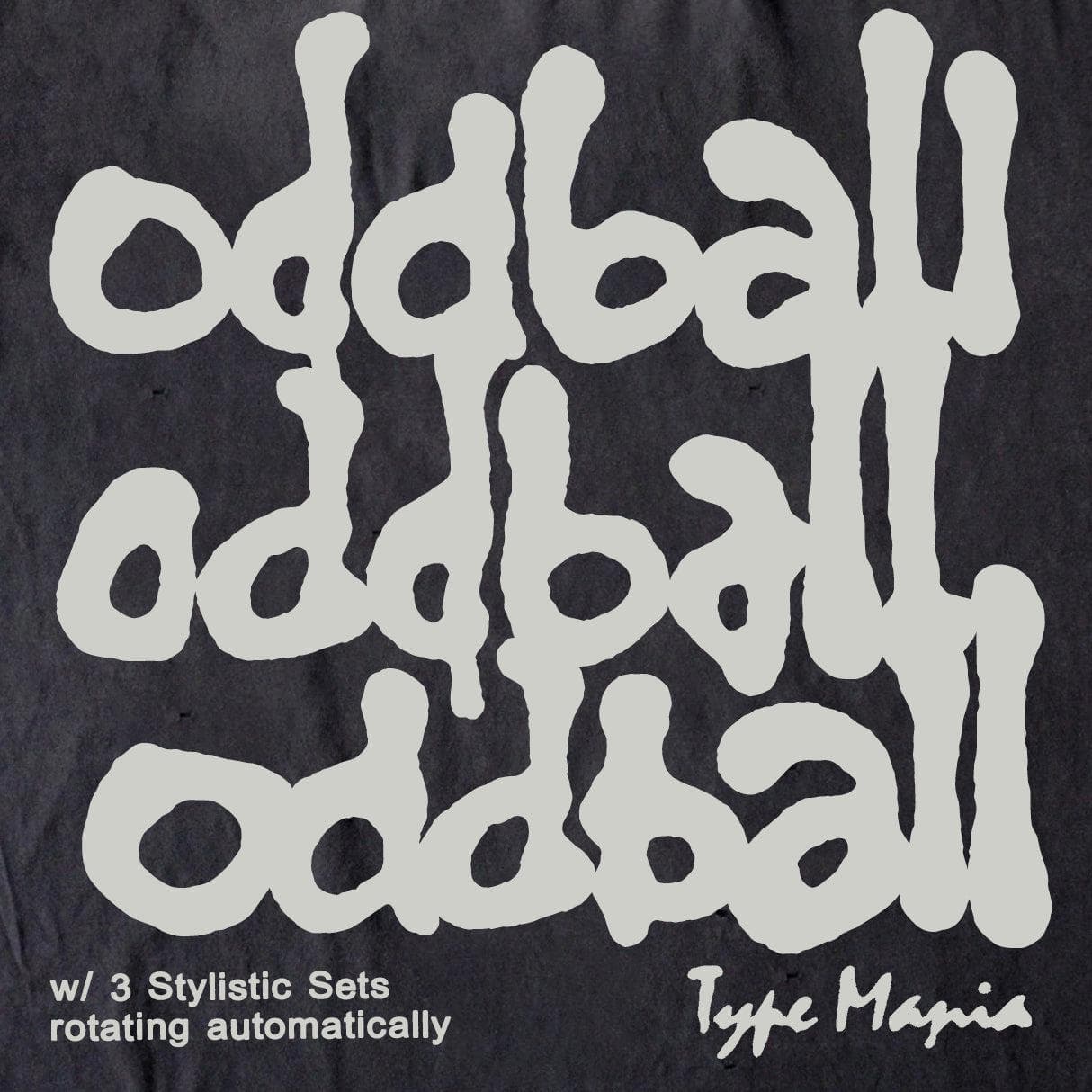
<p>Check out <strong>Oddball TM</strong>, the blob-y handwritten font delivering hard on the 90s vibes. Perfectly imperfect, just like your favorite vintage band t-shirt. Get in where u fit in and remember: bad attitude keeps you young.</p> <p><strong>Zip includes</strong></p> <ul> <li>OTF file</li> <li>TTF file</li> <li>WOFF2 file</li> </ul> <p><strong>OpenType features</strong></p> <ul> <li>3 stylistic sets</li> <li>The font is programmed to automatically shift between the stylistic sets</li> </ul> <p><strong>Languages</strong></p> <ul> <li>Basic Latin</li> <li>Western European</li> <li>Euro</li> <li>Central European</li> <li>Pan African Latin</li> </ul> <p><em>Graphic Design is Easy (with Type Mania)®</em></p>